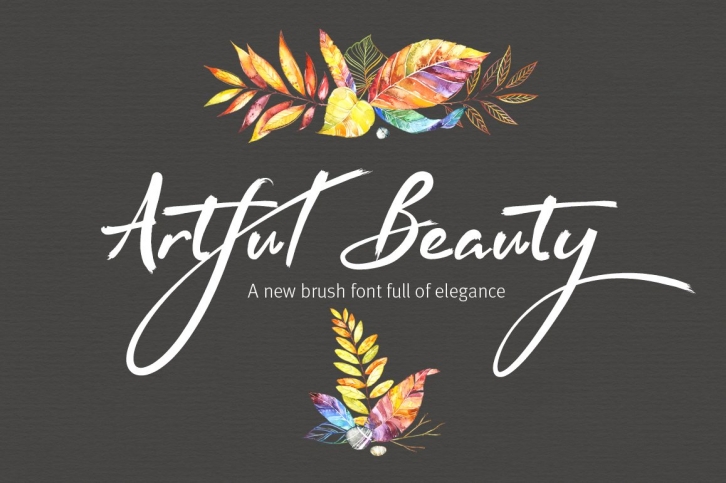
Artful Beauty is a smooth, crisp and clear brush font that can be used for anything! It's easily read by all and has that casual, handwriting feel which oozes elegance.
It's great for any project which requires the popular, sought after, hand painted touch.
Artful Beauty is based on one of the fonts in my Designer's Kit called Regular Rolf and is thicker, has the paintbrush effect and a more calligraphic design. It also includes international characters and is supplied in both OTF and TTF format.